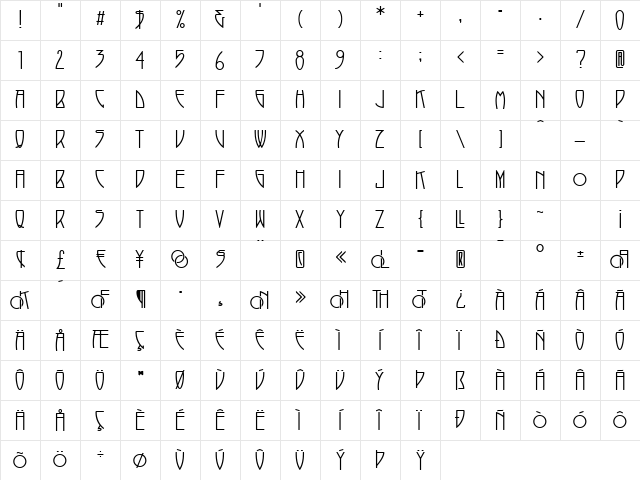
P22 Arts and Crafts Tall Regular
Foundry: P22 type foundry
Designer: James Grieshaber / Dard Hunter
Design Context for P22 Arts and Crafts Tall
P22 Arts and Crafts Tall is a composed and adaptable typeface that performs quietly and consistently across a wide range of design contexts.